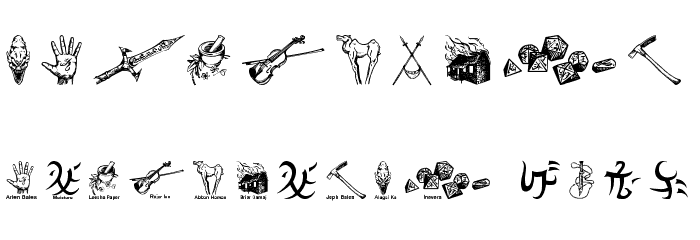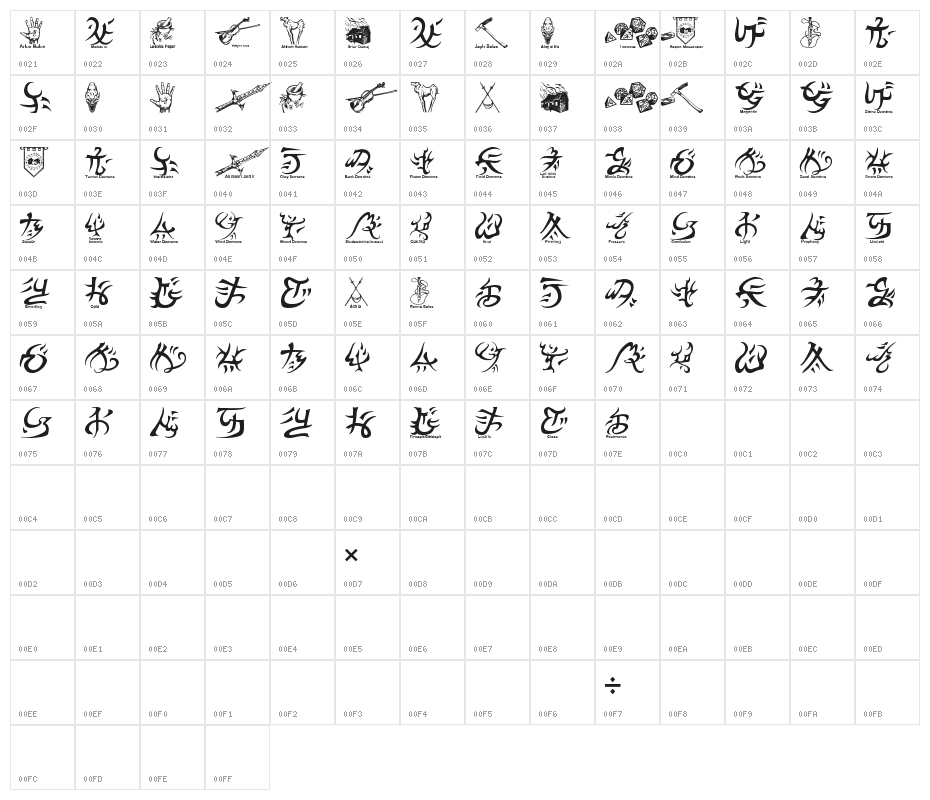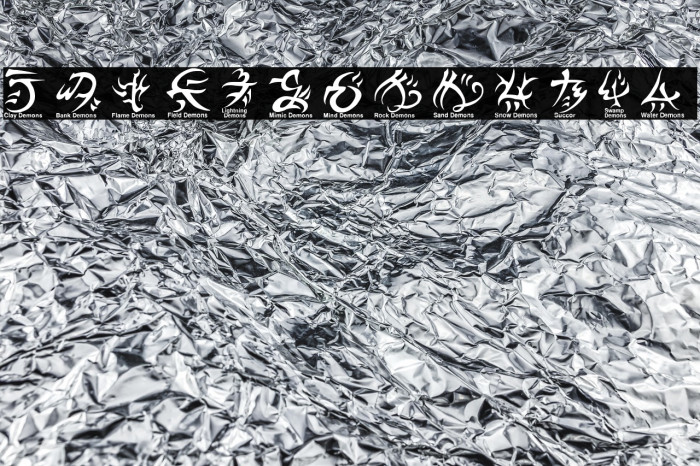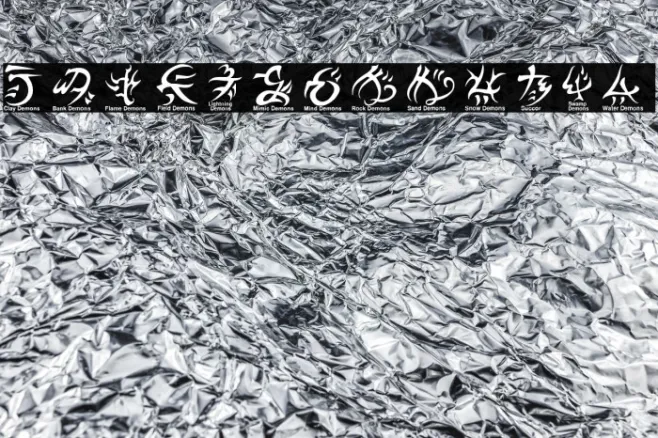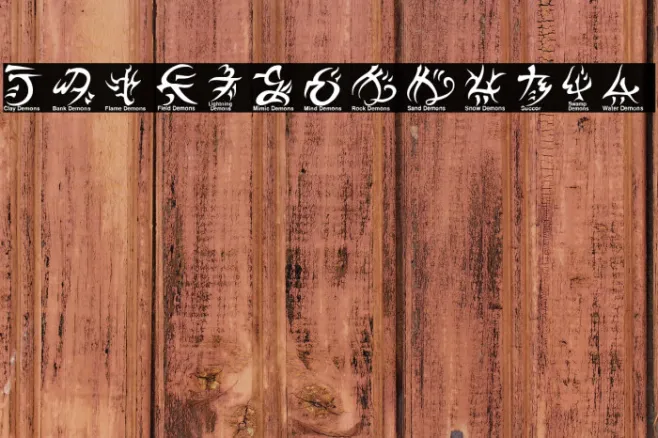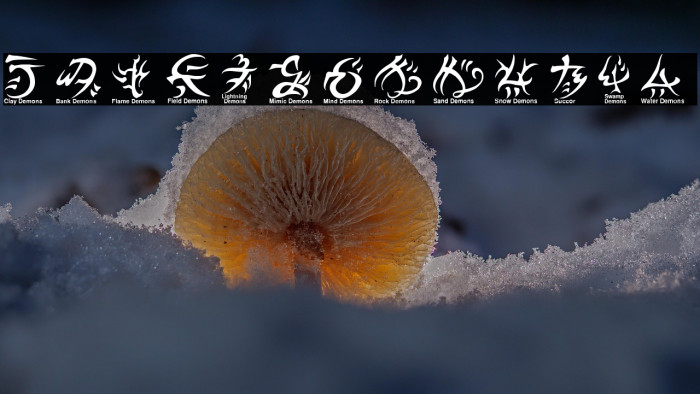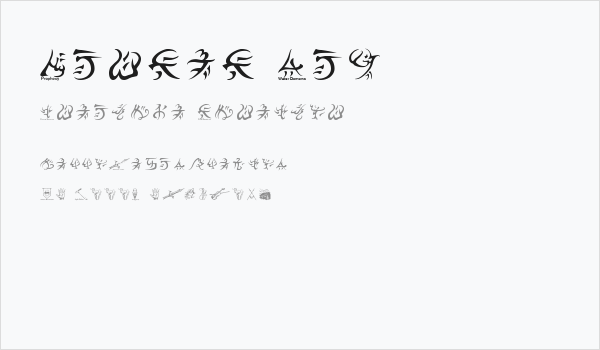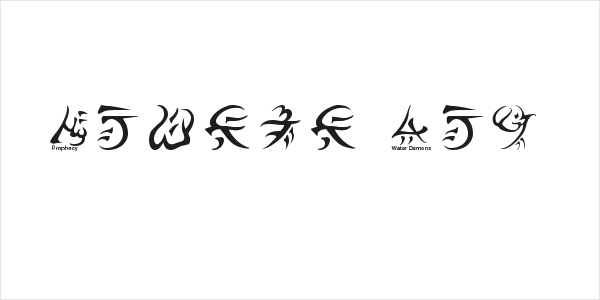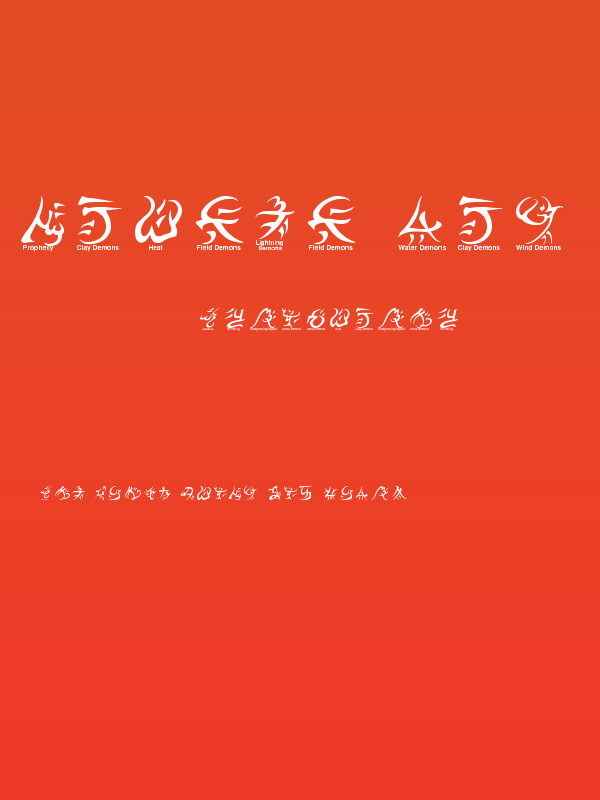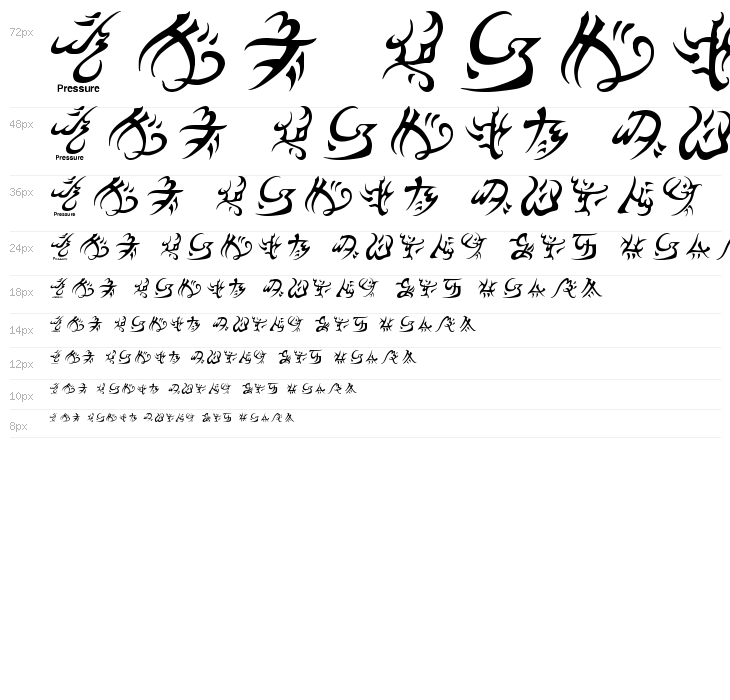
Warded Man Font
Warded Man Description
This is not a valid font. The image appears to contain symbols or glyphs that resemble a fictional or decorative script rather than a standard alphabet. Each character seems to represent a unique symbol or concept, possibly related to a fantasy or fictional theme. The design is intricate, with each symbol having distinct curves and lines, suggesting a mystical or arcane style. This set of symbols does not correspond to a traditional typeface that can be used for standard text input.
| Overall Style | Mystical, Arcane, Fantasy |
| Use Case | Decorative elements, Themed artwork |
| Proposed Projects | This set of symbols could be used for fantasy game design, fictional world-building, or as decorative elements in themed artwork. |